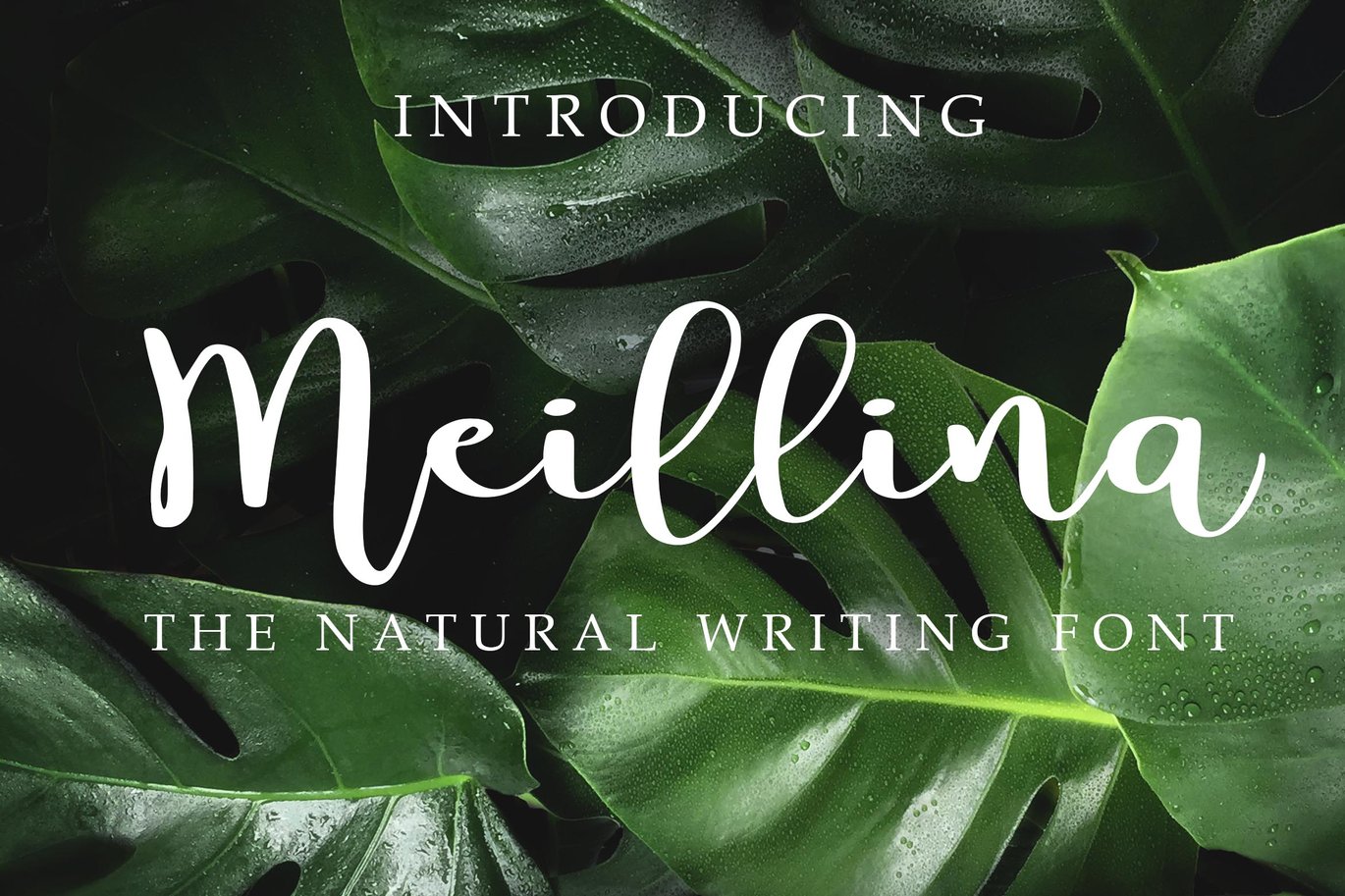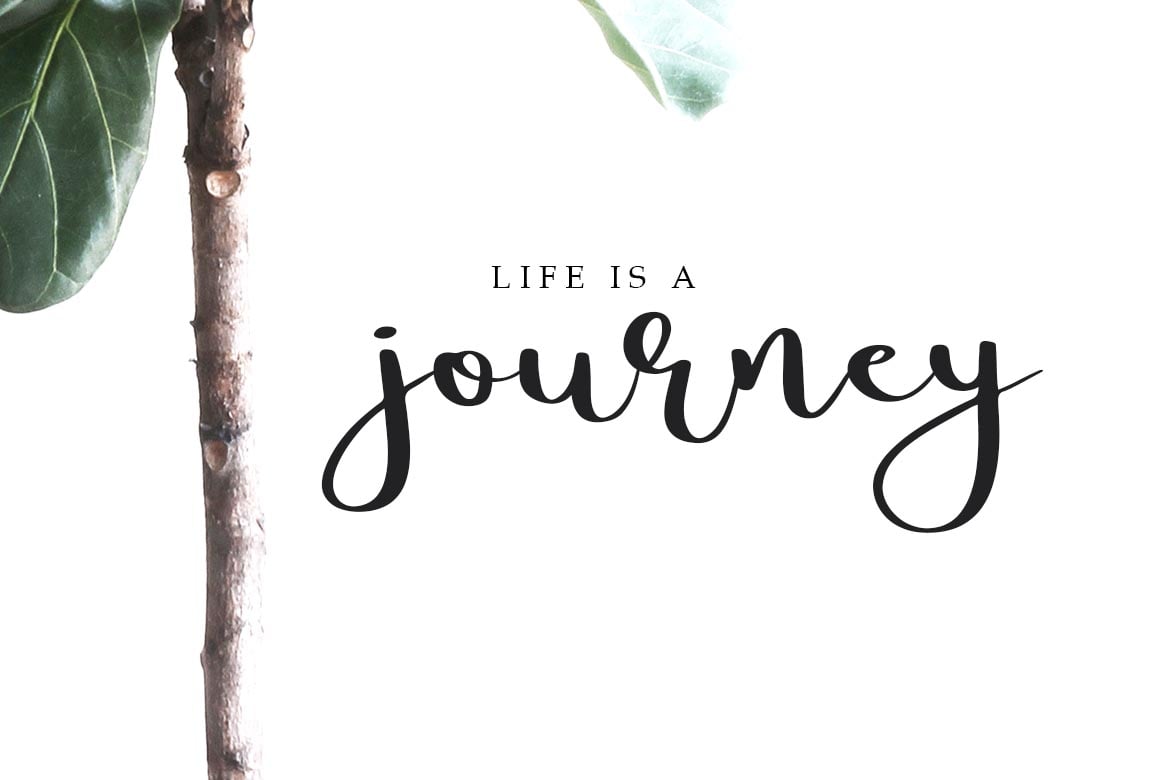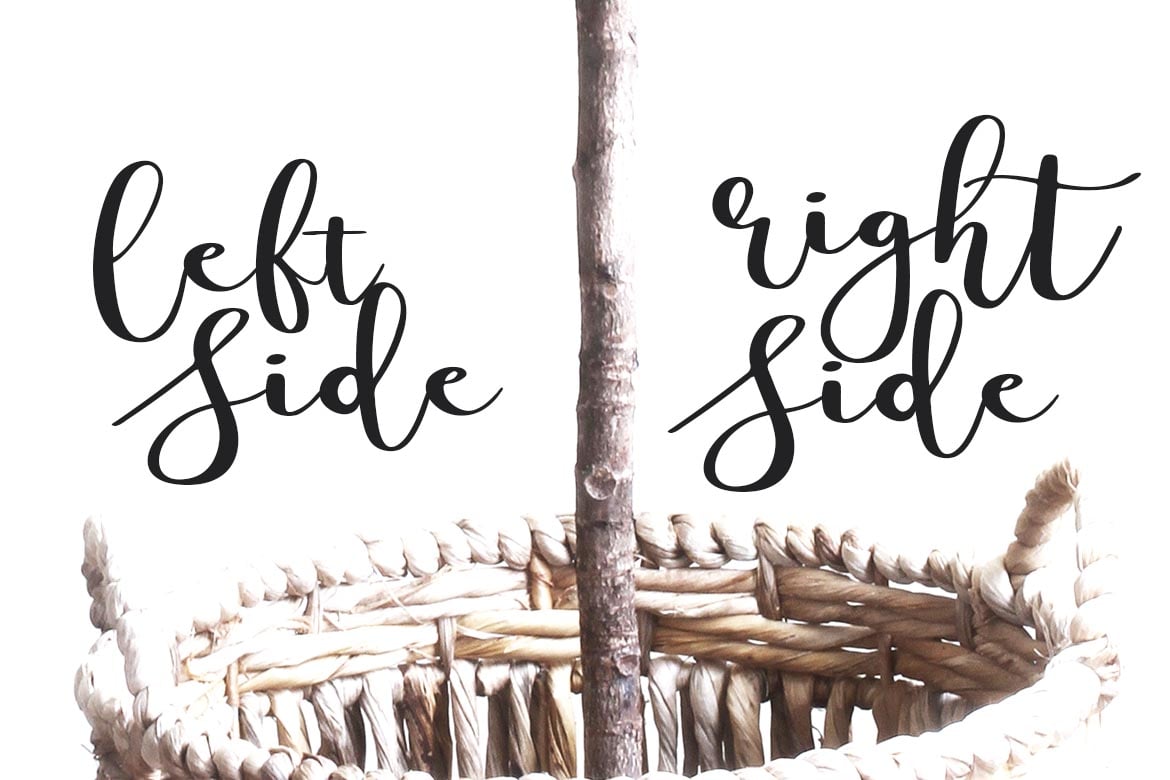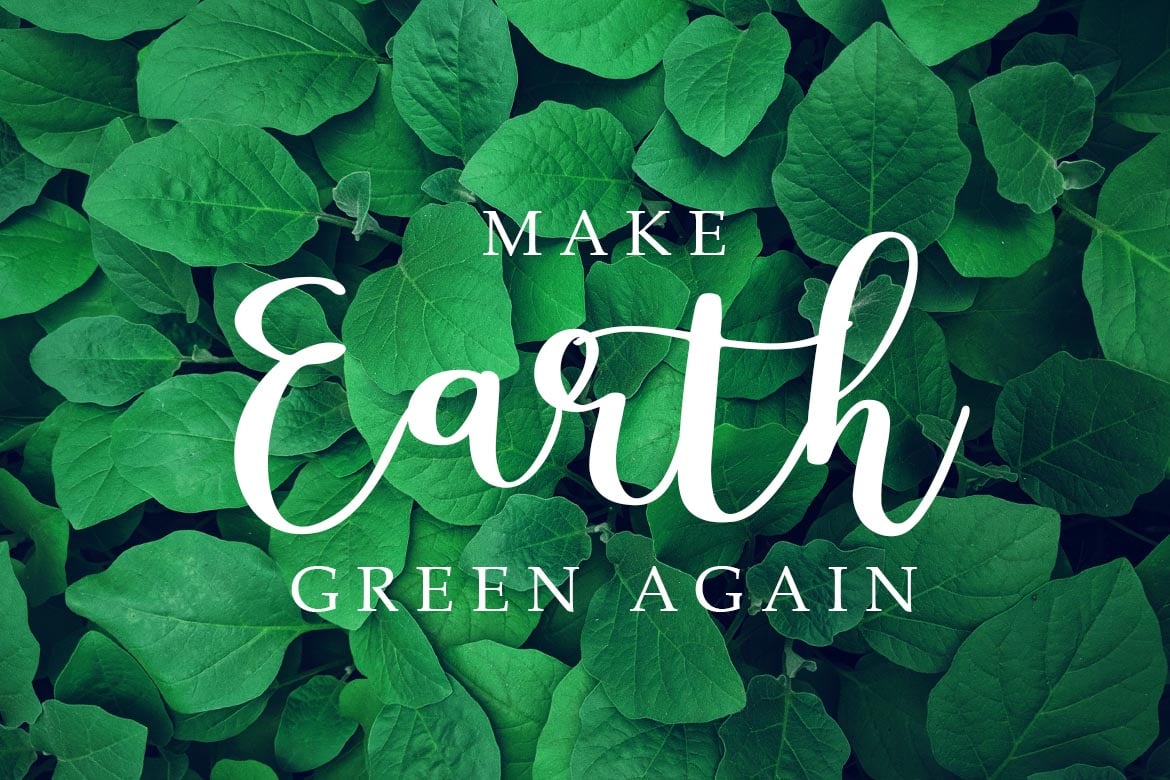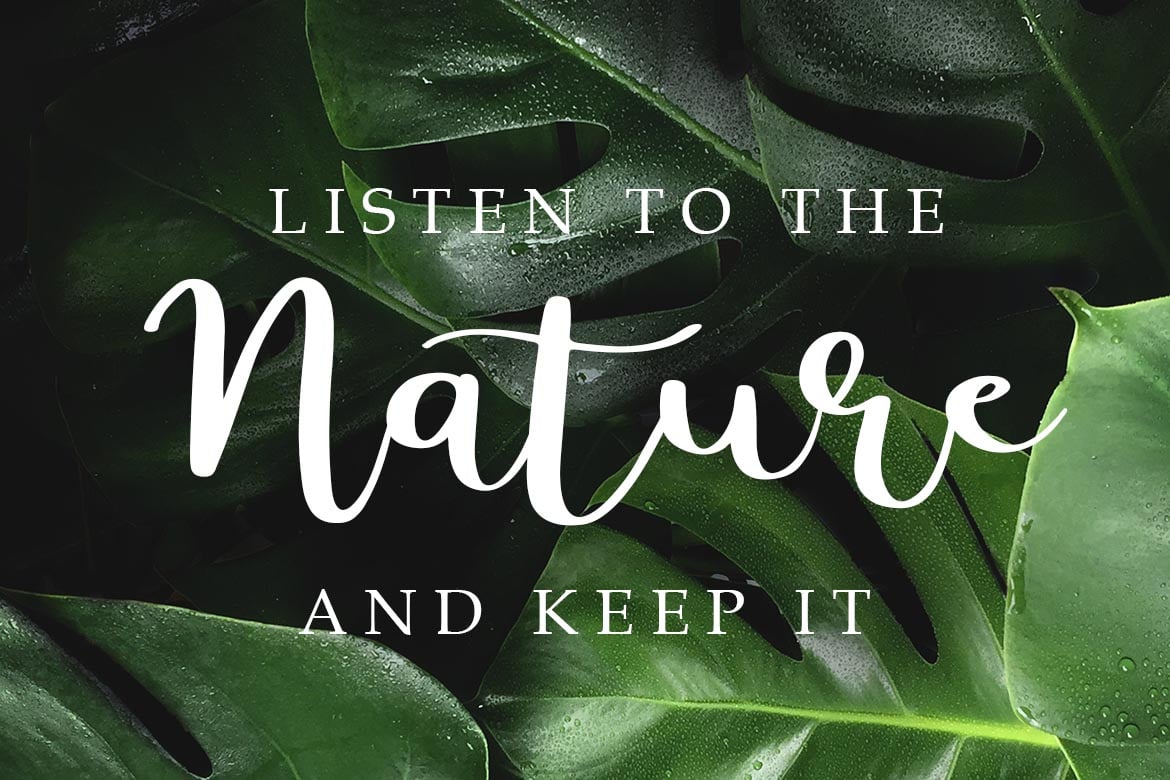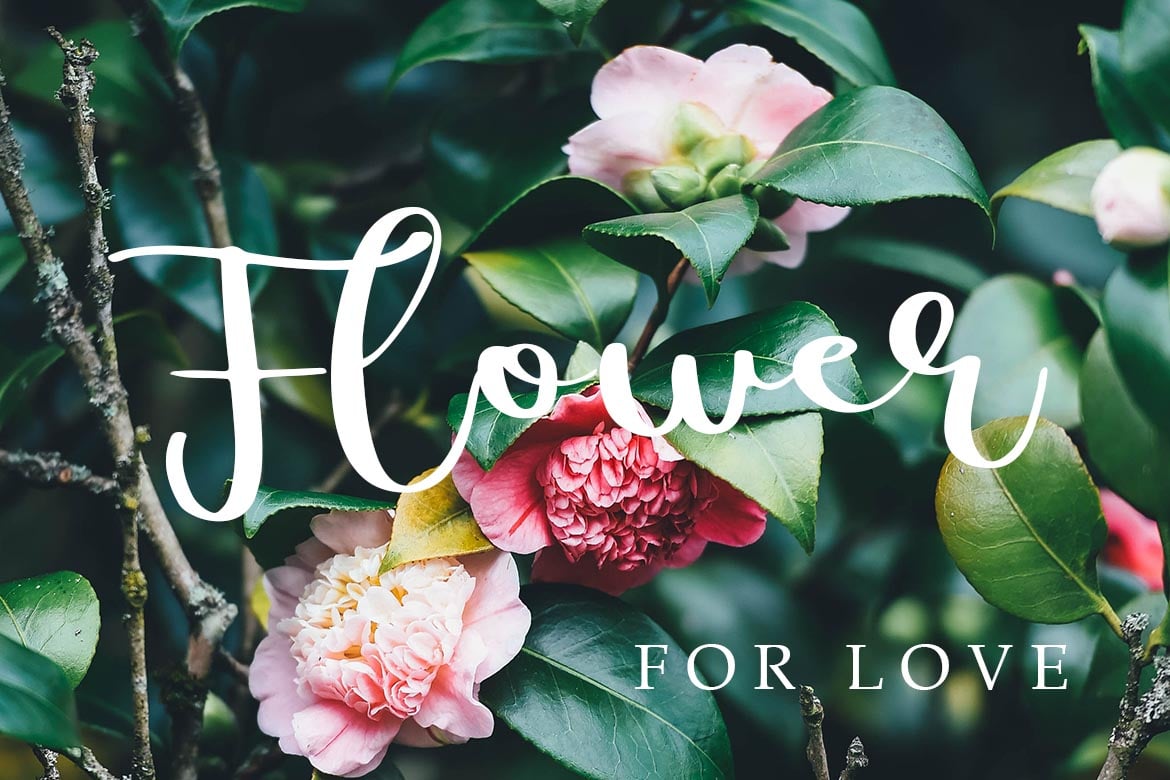
Meillina Natural Font
Meillina is natural writing font. This is the straight version (and bolder) of our previous font melissa.
This Font is good for logo, brand, poster, quotes, wedding invitation, clothing, and apparel.
- (Uppercase, lowercase alternates, titling and swash, ligatures, stylistic set
- Multilingual Support ( English, Swedish, Danish, Norwegian, Dutch, Filipino, Irish, Italian, Finnish, French, German, Hungarian, Icelandic, Polish, Portuguese, Spanish)